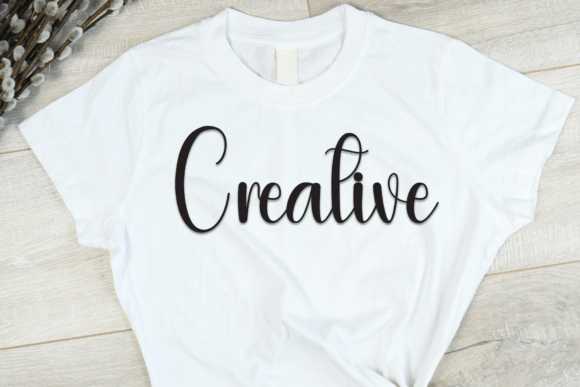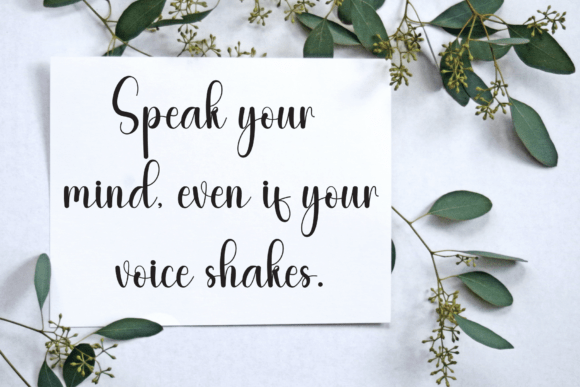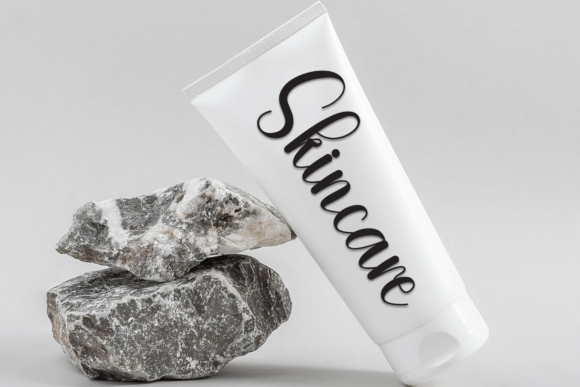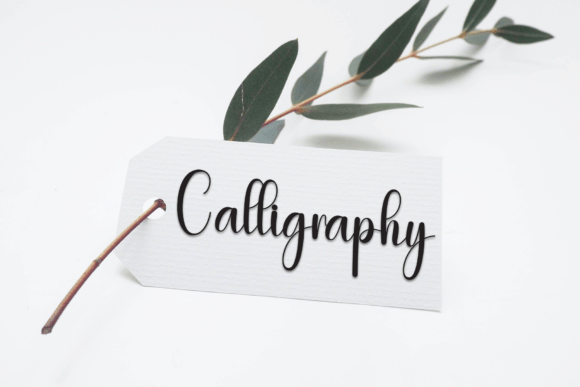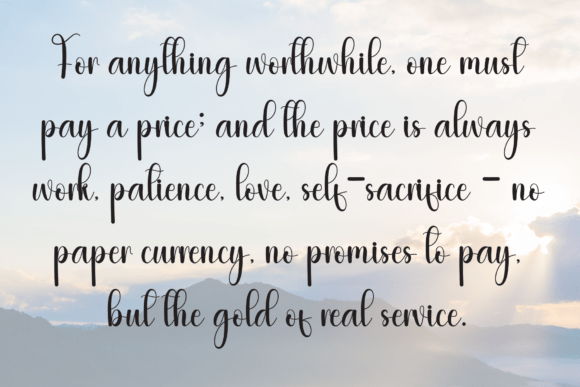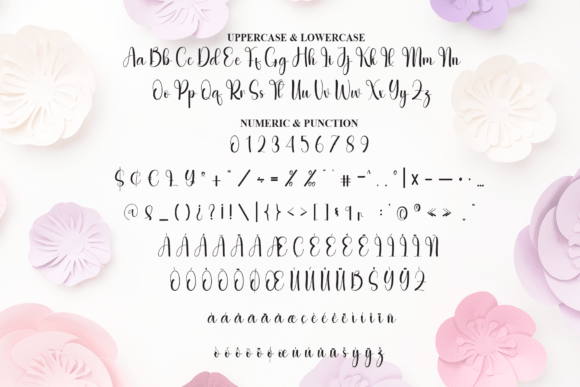
Introduction to Mother Days Font
As a designer, there’s no greater joy than seeing your creative project come to life. For many, that moment arrives when a loved one’s special day is just around the corner – and that’s exactly when the Mother Days Font shines. Its elegant, handwritten script is perfect for capturing the warmth and love of the occasion.
With its gentle curves and stylish flourishes, Mother Days Font adds a touch of sophistication to any design. Whether you’re creating a heartfelt Mother’s Day card or a beautiful invitation, this font is sure to leave a lasting impression. And the best part? It’s a valuable resource for designers, offering a high-quality, free download that can be used on a transparent background, making it easy to incorporate into your design.
As a go-to design resource, Mother Days Font is a must-have for anyone looking to add a personal touch to their creative projects. So why settle for an ordinary font when you can make a statement with the beautiful, loving tone of Mother Days Font?
Key Features of Mother Days Font
- High-quality design resource ideal for creative projects, especially for Mother’s Day celebrations
- Features a unique, elegant design that can be used for various applications, from greeting cards to social media graphics
Honest Review: Mother Days Font
I recently stumbled upon the Mother Days Font while searching for a free design resource to enhance my creative project. As a designer, I was excited to try it out and see if it meets my expectations.
- High-quality design: The Mother Days Font has a beautiful, elegant design that’s perfect for any project that requires a touch of sophistication.
- Transparent background: This is a huge plus for me, as it makes it easy to use the font on any background without worrying about it getting lost.
- Limited character set: The font only includes a limited character set, which may not be suitable for projects that require a wide range of characters.
Overall, I’m impressed with the Mother Days Font, and I think it’s a great addition to any designer’s toolkit. While it has some limitations, its high-quality design and transparent background make it a valuable resource for creative projects.
The Mother Days Font is a unique design resource that offers a high-quality, free download for your creative project. This font features a transparent background, making it versatile for various design applications.
Common Use Cases for Mother Days Font
The Mother Days Font is ideal for various creative projects, including:
- Invitations and greeting cards